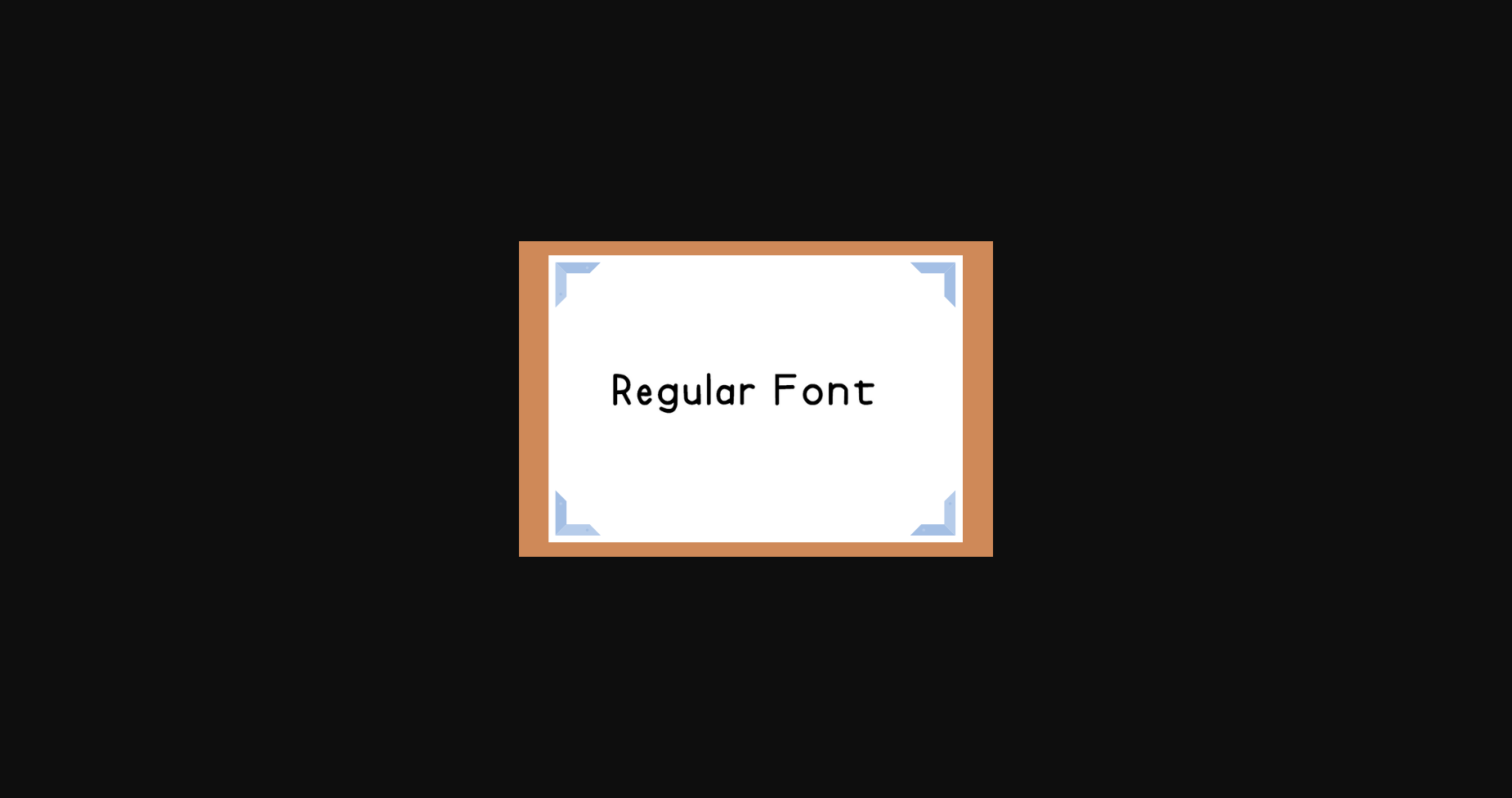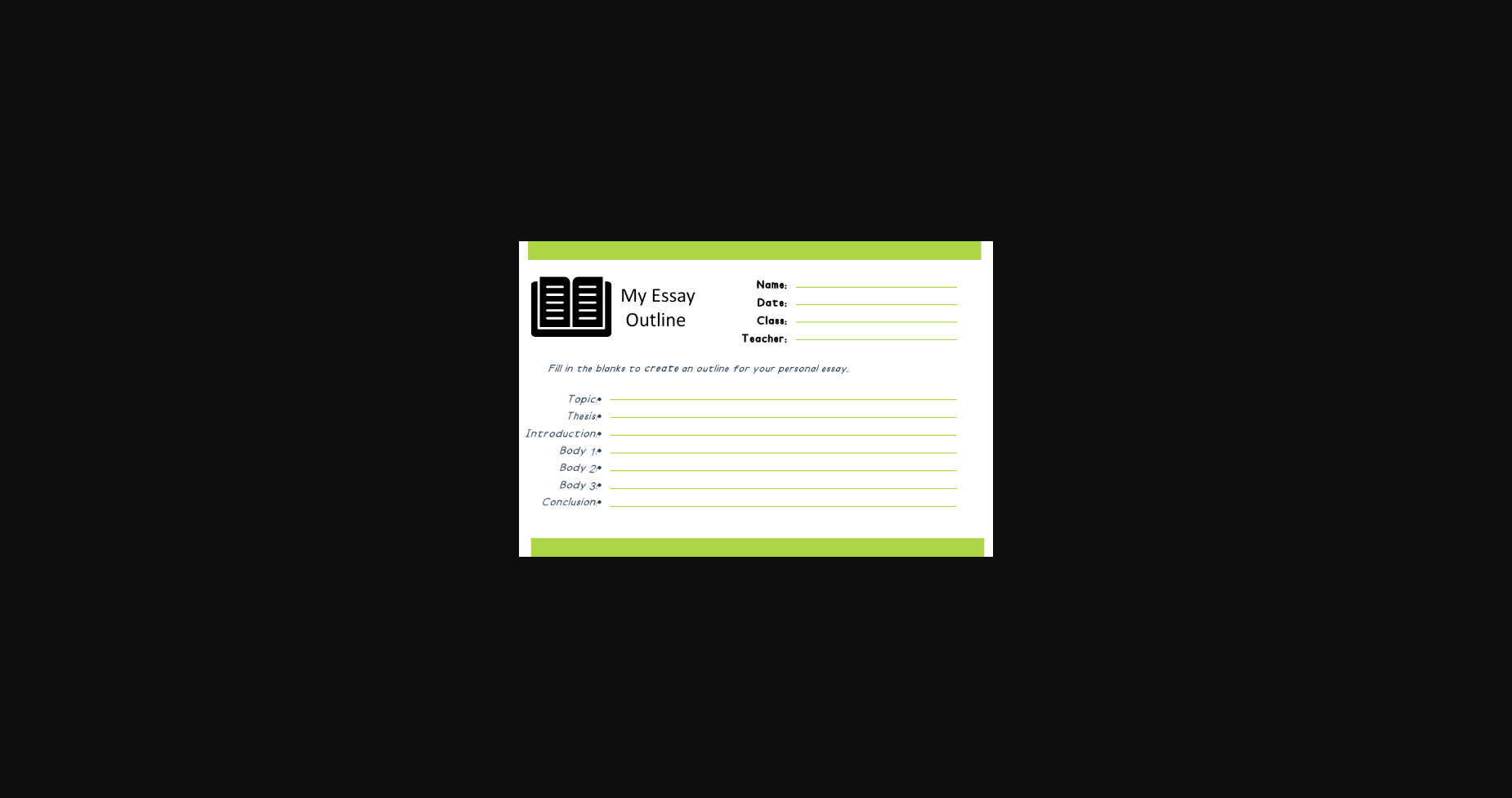
HomeSans Serif FontsRegular Font Sans Serif Fonts Regular Font FacebookXPinterestWhatsApp 1 of 4 ... Regular Font Poster 2... Regular Font Poster 3... Regular Font Poster 4... About Regular Font Regular is a minimal and neat sans serif font. It can easily be matched to an incredibly large set of projects, so add it to your creative ideas and notice how it makes them stand out! DOWNLOAD NOW People also explored Special Flower Font Break Beach Giddy Font Subway Mosaic The Romantic Absolute Font Bohemy Font Blue Birds Font Antario Font Betthofen Font 393 0 TagsRegularRegular Font Previous articleGrueso FontNext articleLavenchia Font LEAVE A REPLY Cancel reply Comment: Please enter your comment! Name:* Please enter your name here Email:* You have entered an incorrect email address! Please enter your email address here Website: Save my name, email, and website in this browser for the next time I comment. Personal Use Free Beat My Guest Personal Use Free Read more about this font Bonifaciy Personal Use Free Read more about this font Daisy Script Personal Use Free Read more about this font Bright Dreams Personal Use Free Read more about this font BLOG How to Install and Use Fonts on Windows, macOS, and Web Projects How to Install and Use Fonts on Windows, macOS, and Web Projects Fonts are a crucial part of design and branding. Whether you’re designing a... Free vs Paid Fonts: Why Investing in Premium Fonts Is Worth It Top 10 Handwritten Fonts That Elevate Your Designs Exploring Font Trends